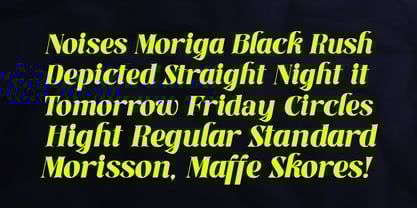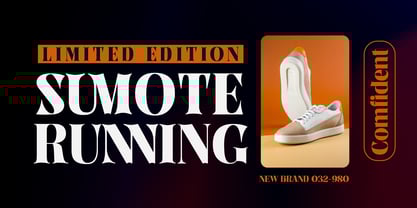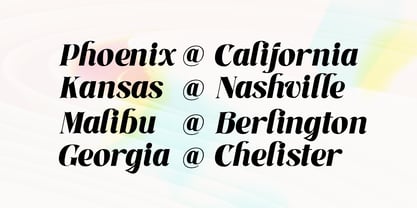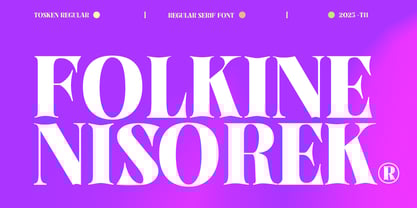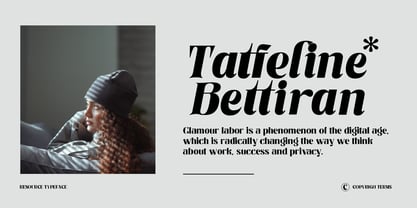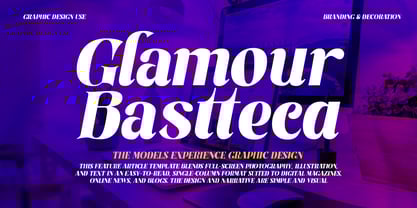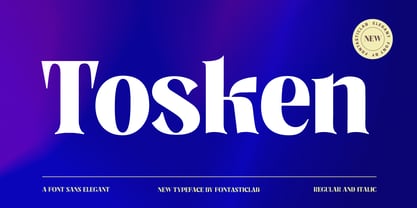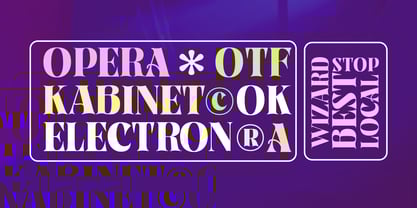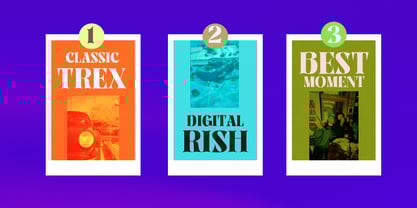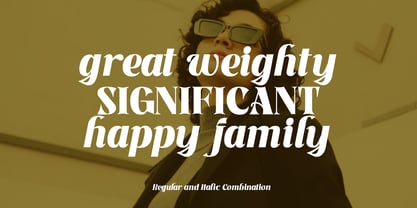
Tosken
by Fontastic Lab
The Tosken Font Family was designed by Bebby Lutfitharina and published by Fontastic Lab. Tosken contains 2 styles and family package options. More about this family
Tosken serif features a series of two captivating styles with varied alternatives: Regular and Italic. This font is a clean and versatile blend for use in big, dreamy designs, offering a clear, upright typeface for a strong front-end presence at large sizes and easy readability in open text. Complementing its initials, this typeface offers accessible and interchangeable alternatives through a series of open letter styles, further expanding its expressive potential for any design project.